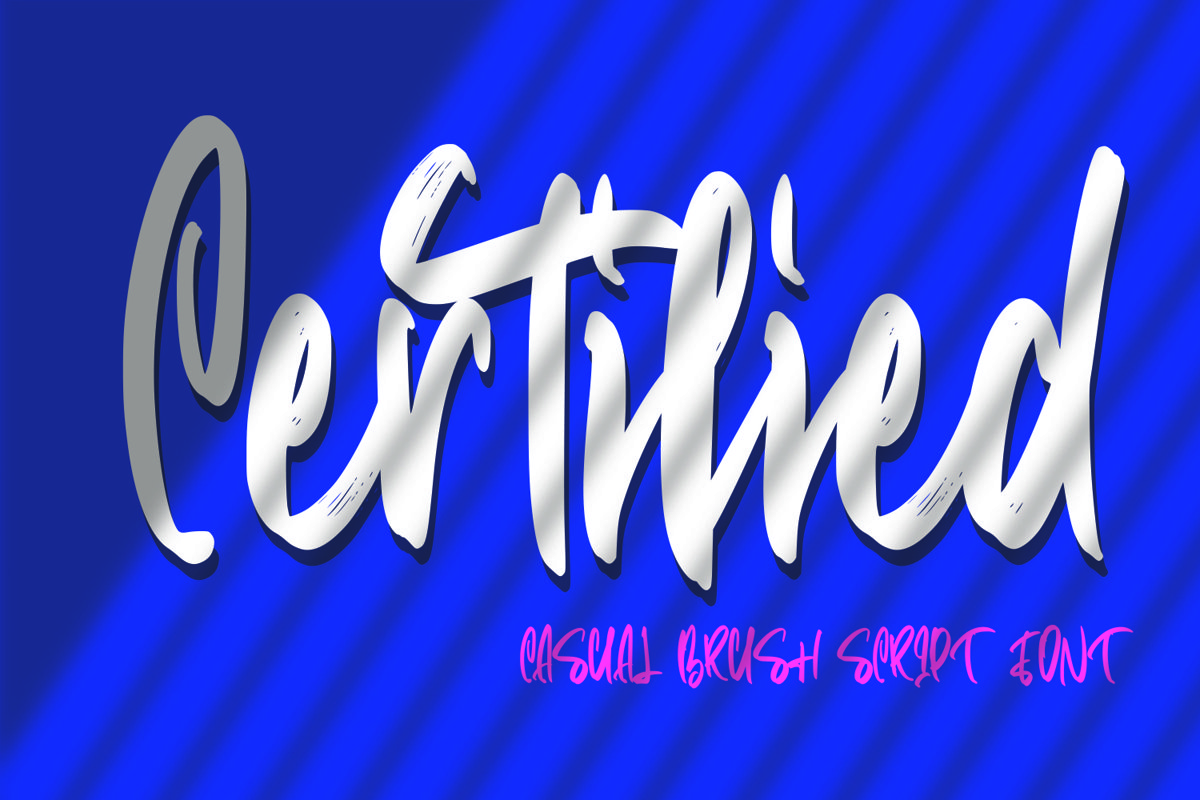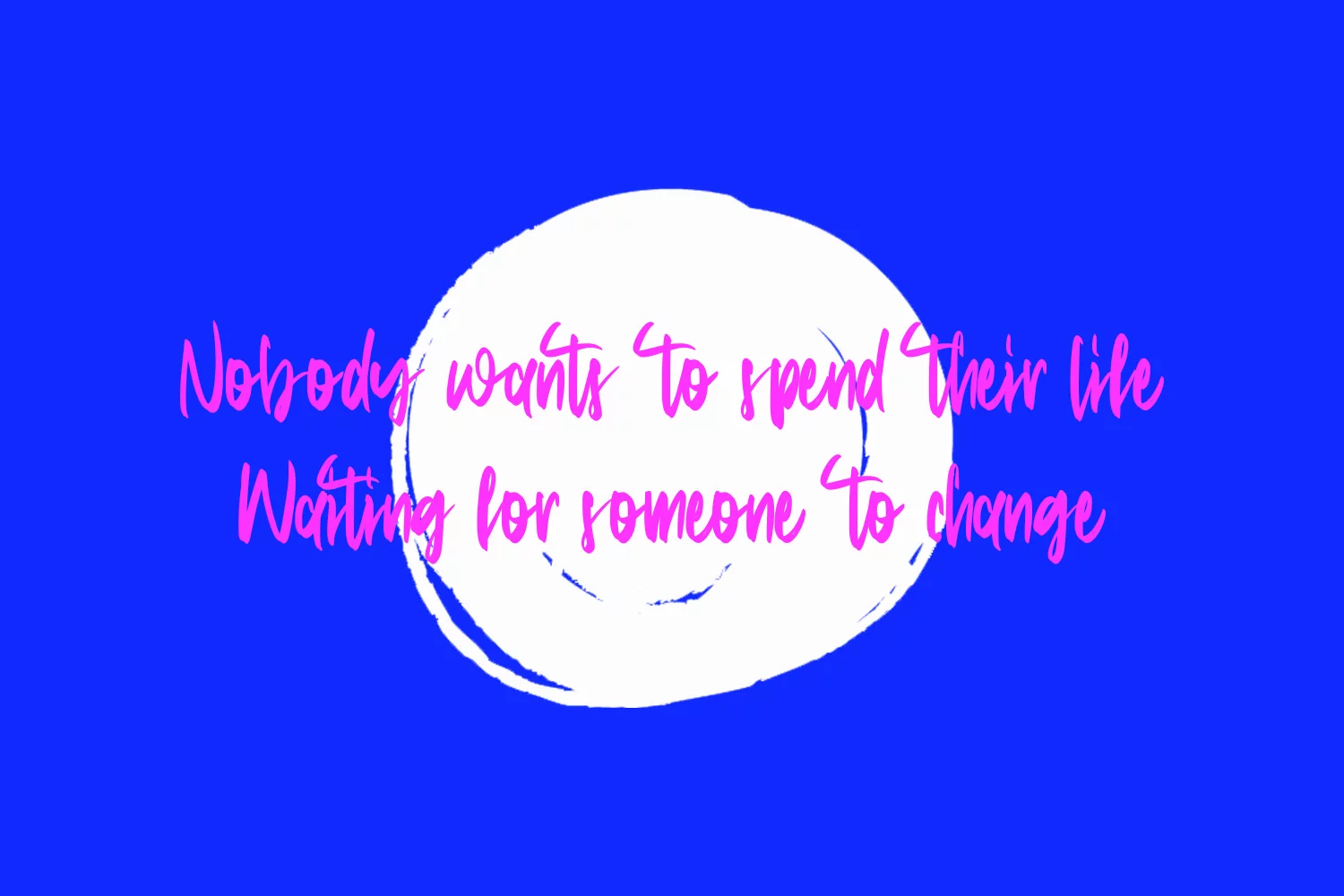
Certified - Casual Brush Script Font that contain lowercase, uppercase, symbol, and also support multi language. There’s a lot ligatures in this font. This Font also comes with ligatures, alternates and many more. this font suitable for fashion, branding, catalog and other design what you want.
Certified